A thumbnail font has about half a second to be read before someone scrolls past it, usually at a size smaller than a postage stamp on a phone screen. That rules out anything with fine detail or tight spacing — these ten were picked specifically for maximum legibility at a tiny, low-attention size. If you’ve been searching for free fonts for youtube thumbnails, these picks are curated with exactly that in mind.
Quick Comparison
| Font | Style | Best For |
|---|---|---|
| Anton | Ultra-condensed impact sans | Big, punchy callout text |
| Poppins | Geometric sans | Clean, modern thumbnail text |
| Bebas Neue | Condensed all-caps display | Classic minimalist thumbnail text |
| Archivo Black | Heavy grotesque | Bold callout text |
| Luckiest Guy | Playful cartoon-bold display | Reaction and comedy thumbnails |
| Passion One | Rounded bold display | Vlog and lifestyle thumbnails |
| Oswald | Condensed sans | News and commentary thumbnails |
| Bungee Shade | 3D-shadow display | Gaming and high-energy thumbnails |
| Righteous | Retro-futuristic display | Tech and gaming content |
| Fredoka | Rounded bouncy sans | Family and kids’ content thumbnails |
Anton
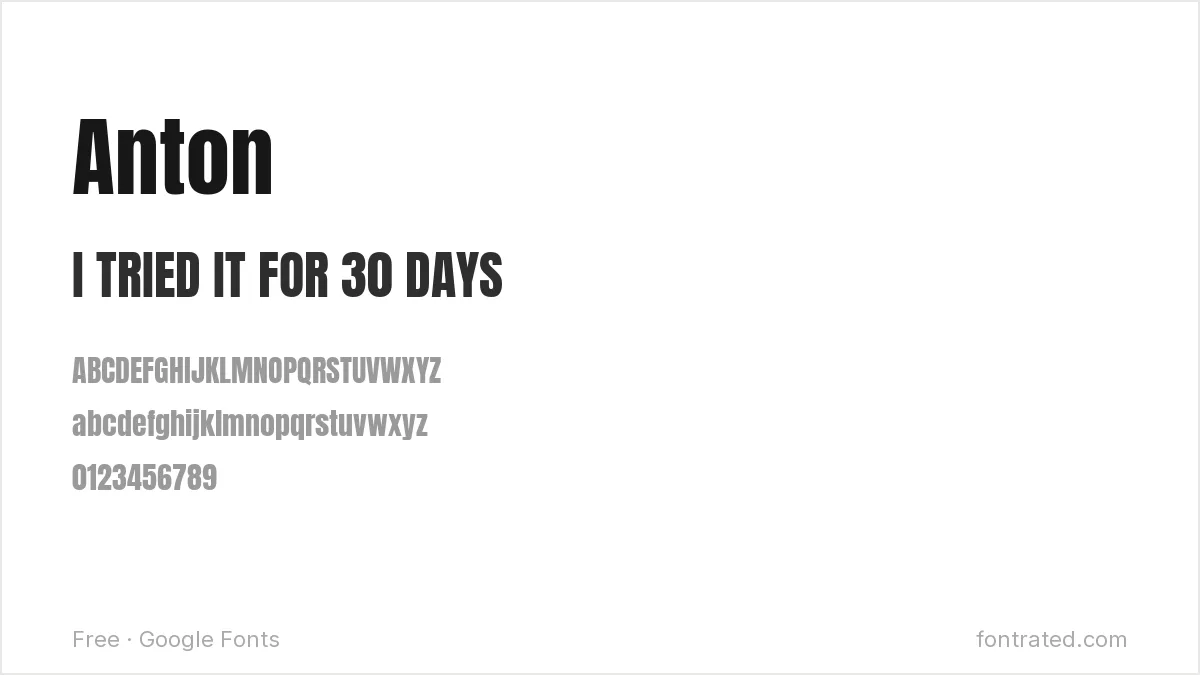
The default choice for a reason: Anton’s extreme weight and condensed width let you fit a short, urgent phrase into a small thumbnail area without shrinking it into illegibility.
Poppins
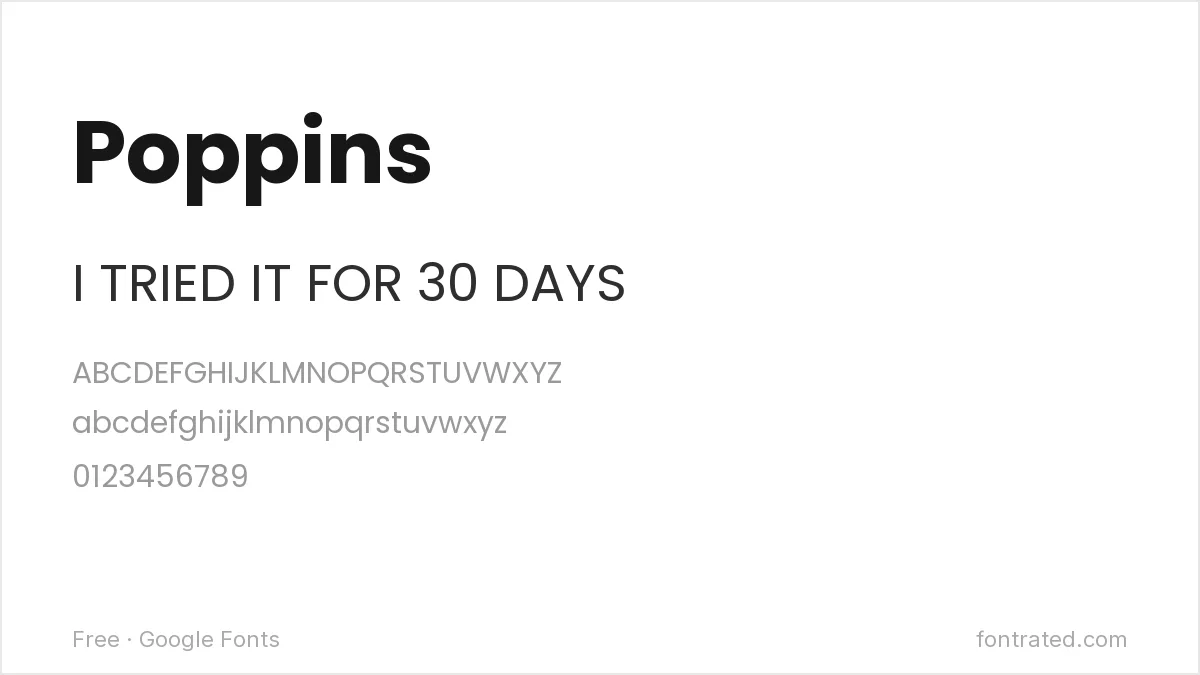
Less aggressive than Anton but still bold at heavier weights, Poppins gives a thumbnail a more polished, modern feel — a common choice for tech, education, or lifestyle channels.
Bebas Neue
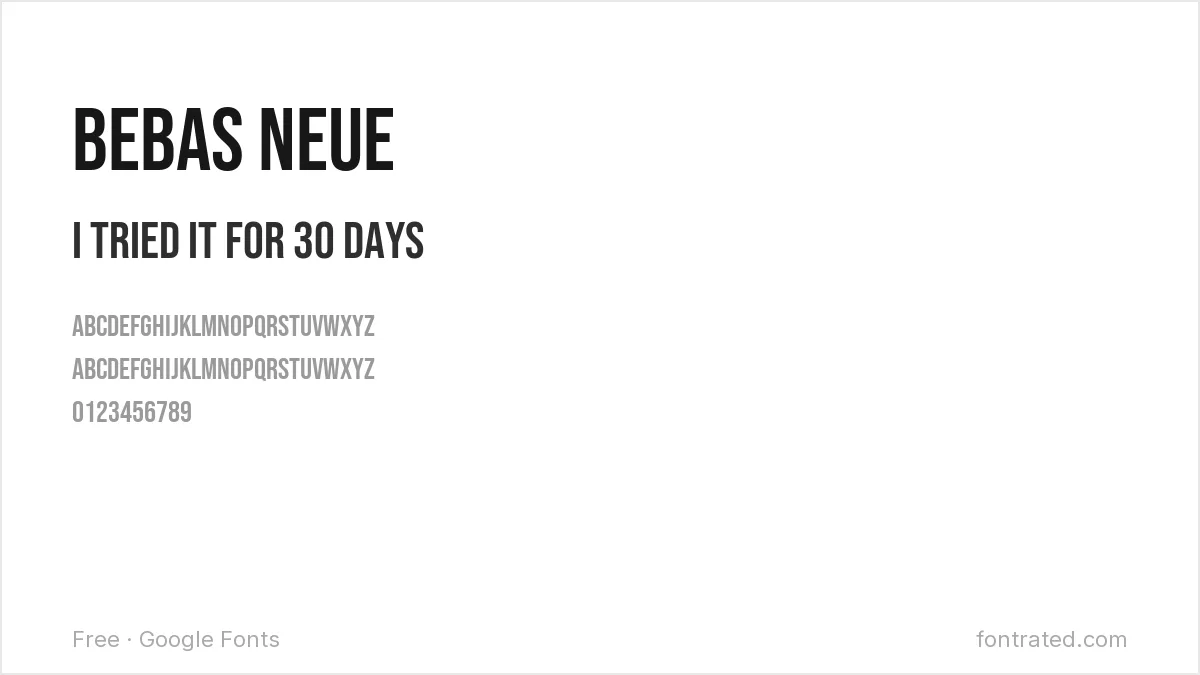
One of the most recognizable thumbnail fonts on the platform for a reason: tall, condensed, all-caps letterforms read instantly even shrunk down in a subscription feed.
Archivo Black
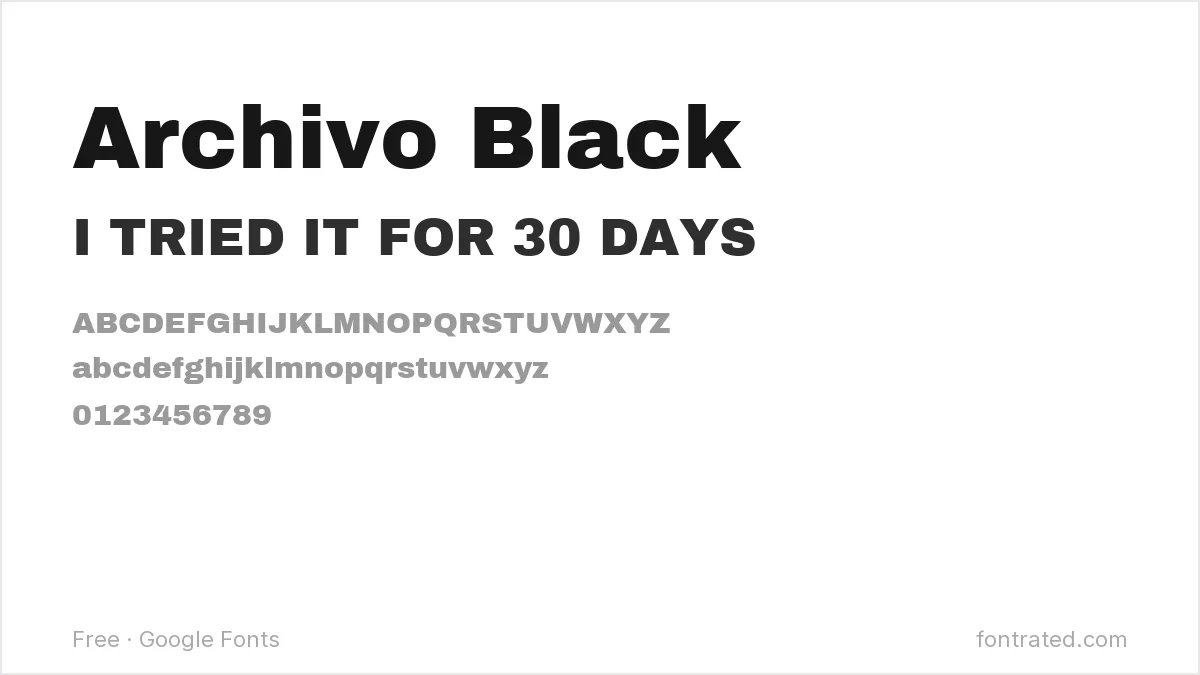
An extremely heavy, no-frills grotesque, Archivo Black works well for a short callout word or number (like a big percentage or countdown) that needs to dominate the frame.
Luckiest Guy
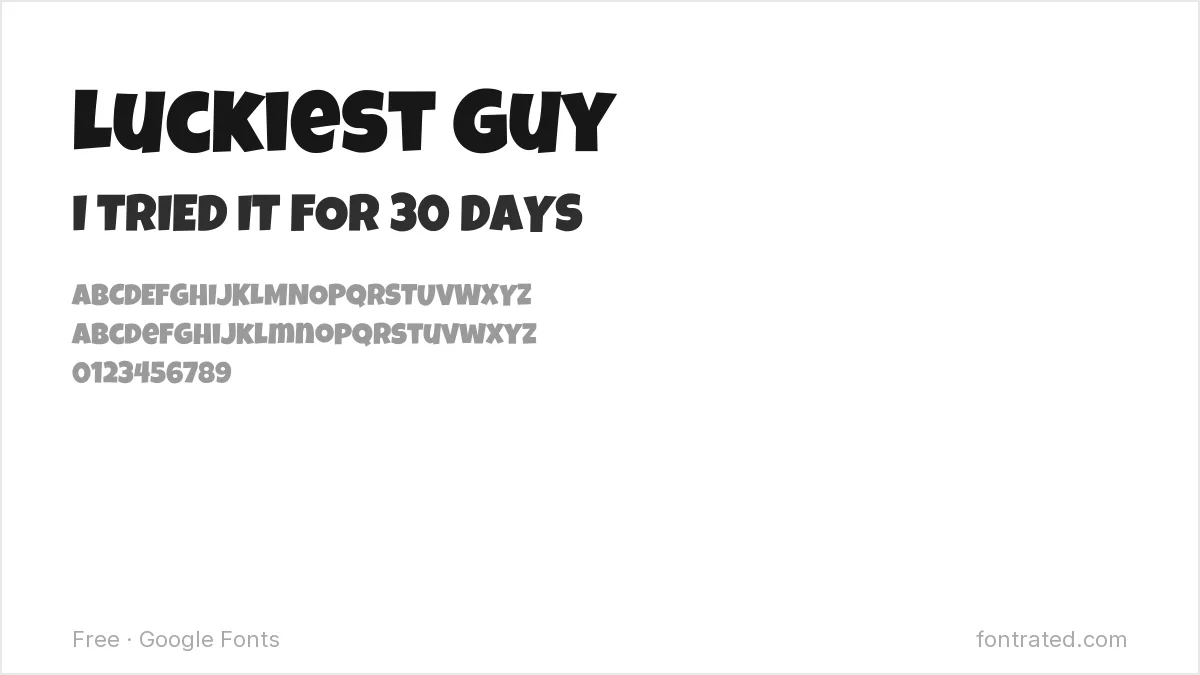
Rounded and bouncy with real cartoon energy, Luckiest Guy signals “this is going to be fun” before anyone reads the actual words — a strong fit for reaction or comedy content.
Passion One
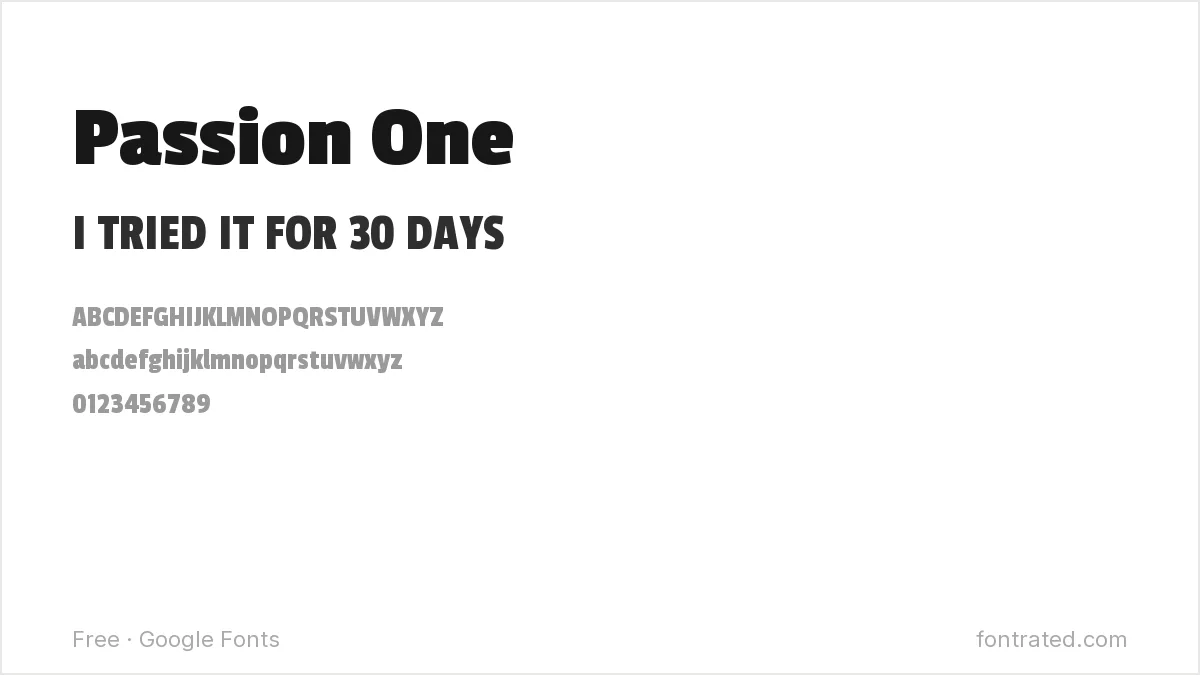
A friendly, rounded heavyweight font that reads as approachable rather than aggressive, Passion One suits vlog or lifestyle channels that want boldness without shouting.
Oswald
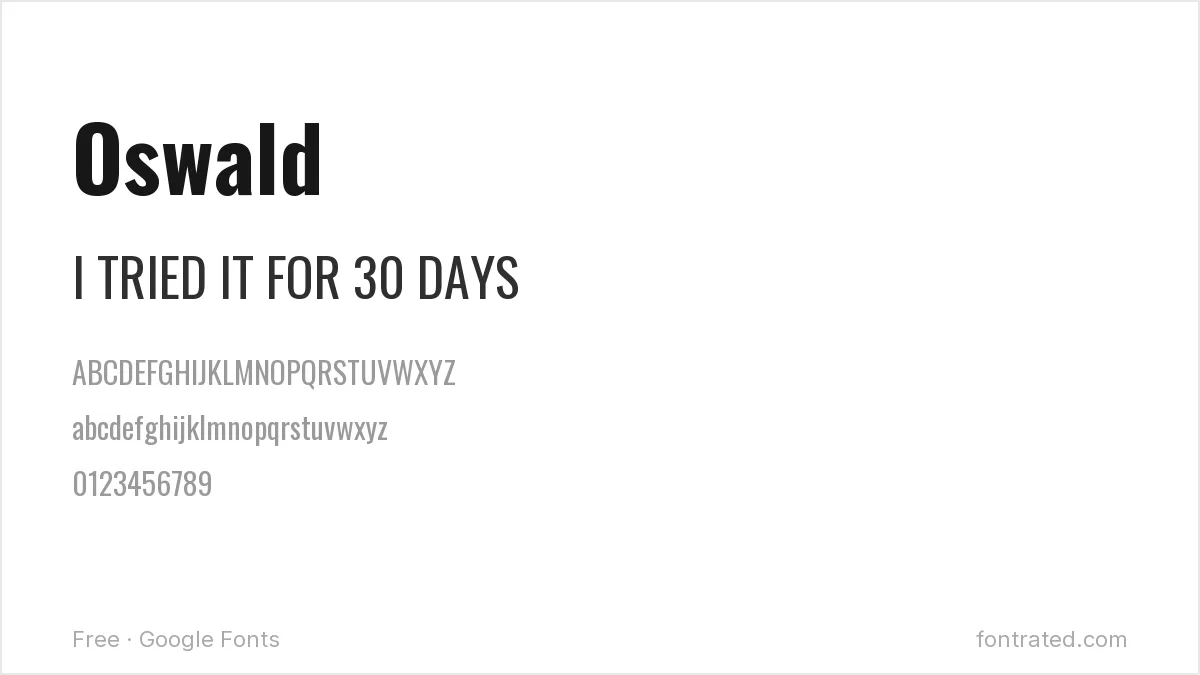
Oswald’s confident, slightly industrial feel (drawn from classic gothic signage) gives news, commentary, or explainer-style thumbnails a serious, credible tone.
Bungee Shade
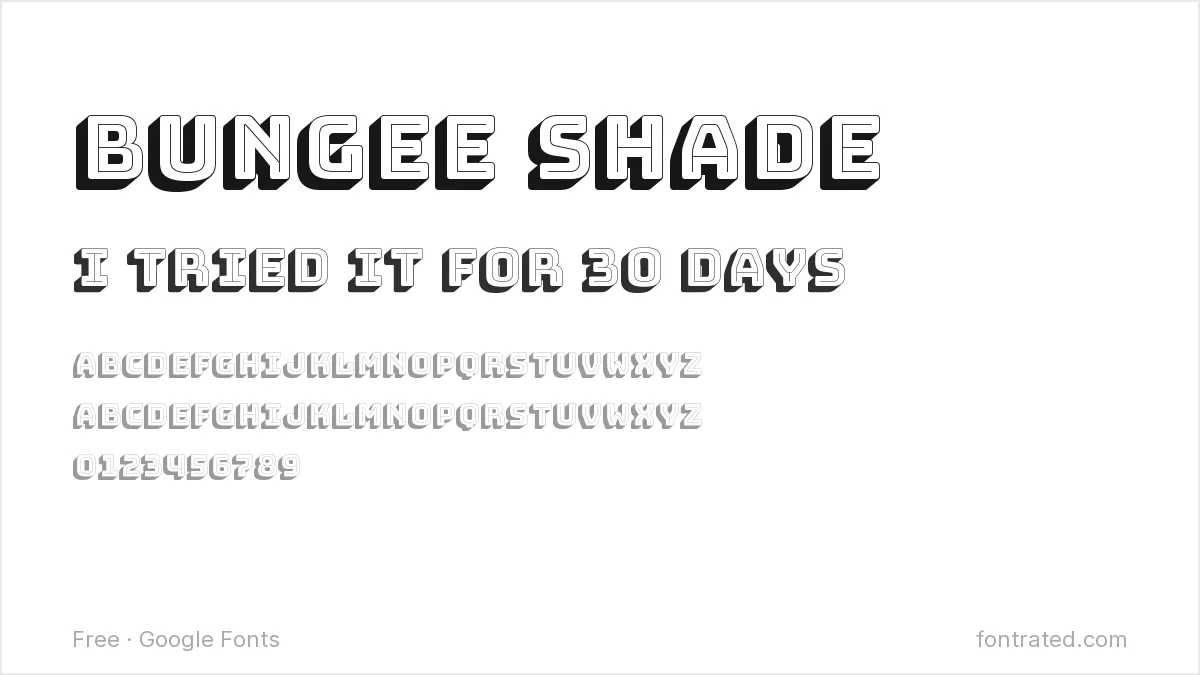
Bungee Shade’s built-in drop-shadow effect gives text a 3D, poster-like pop with zero extra design work — a fast way to make gaming or high-energy content stand out in a crowded feed.
Righteous
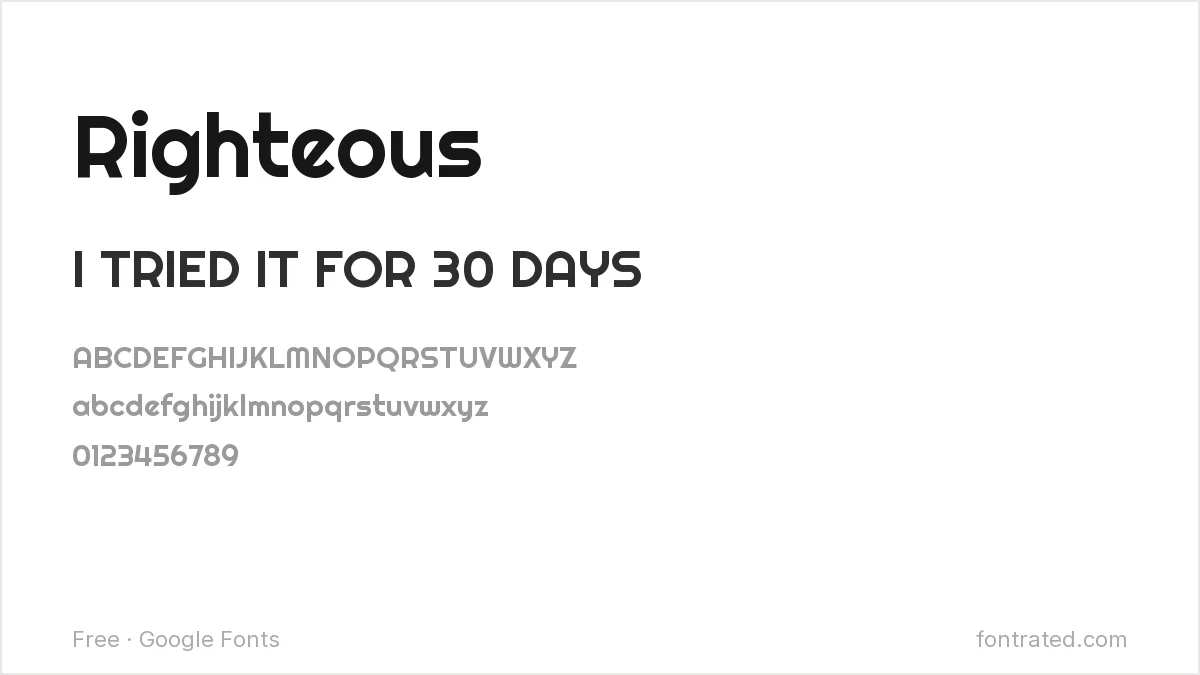
A rounded display font with a slightly retro-futuristic edge, Righteous adds a bit of attitude that suits tech, gaming, or entertainment-adjacent channels.
Fredoka
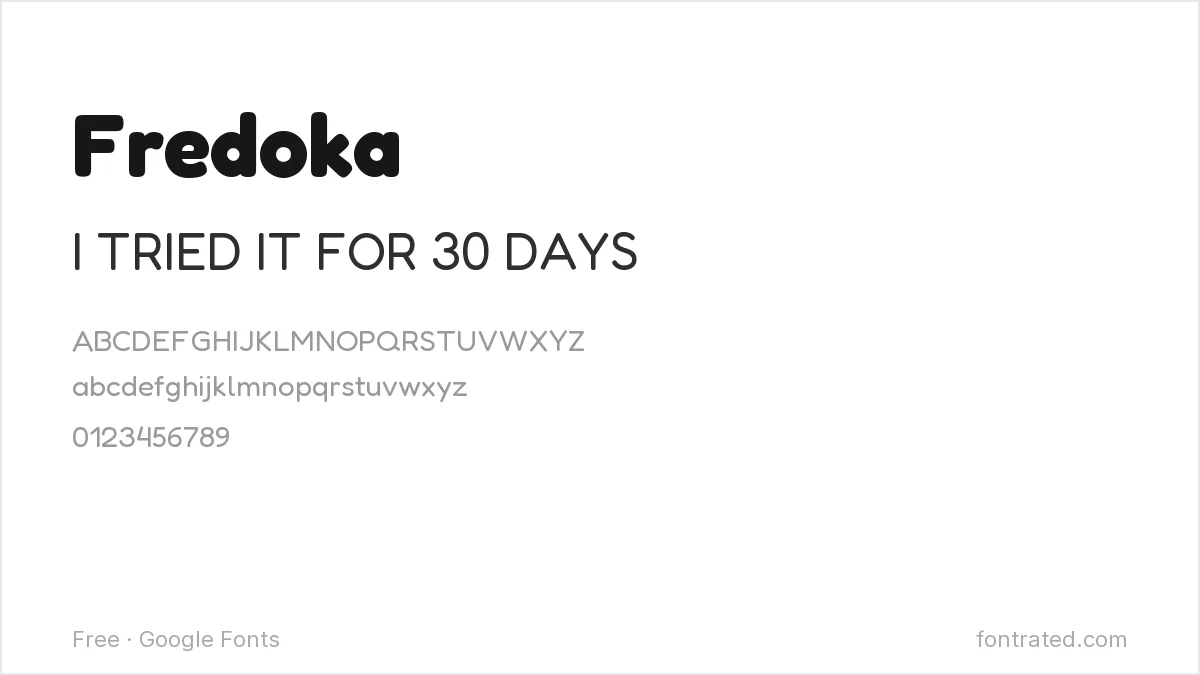
Friendly and approachable at heavier weights, Fredoka is a common choice for family, kids’, or education channels that want a thumbnail to feel warm rather than intense.
Which one should you actually pick? Anton or Bebas Neue if you want the tried-and-tested YouTube look; Luckiest Guy or Fredoka if your channel’s tone is more playful than intense. Whatever you pick, test it shrunk down to actual thumbnail size in a mock sidebar — legibility at a glance is the only metric that matters here.
Thumbnail text needs weight and width more than anything else, which is why two commercial faces keep coming up: free alternatives to FF DIN covers condensed, high-impact options, and free alternatives to Gotham covers the bold geometric look.
Frequently Asked Questions
Are these fonts free to use in thumbnails for a monetized YouTube channel?
Yes. All ten are Google Fonts under the SIL Open Font License, which permits commercial use — including thumbnails on a monetized channel — with no royalties or attribution required.
What’s the ideal font size for thumbnail text?
As a rough guide, keep any text large enough to read clearly at roughly 120×67 pixels (a typical mobile thumbnail size) — for a 1280×720 canvas, that usually means text no smaller than about 60-80px, often much larger for a short callout word.
How much text should actually go on a thumbnail?
As little as possible — most high-performing thumbnails use three to five words at most. A thumbnail’s job is to be scanned in under a second, not read like a headline; the video title (visible right next to it) can carry the rest of the context.